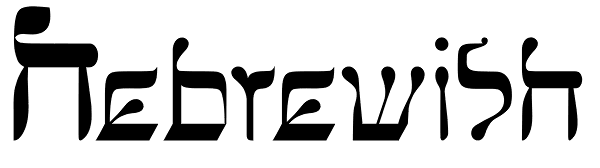
Hebrewish
I decided to create Hebrewish because the only Hebrew Latino font I have ever seen didn't really live-up to my expectations. Each Roman letter and Arabic numeral in this font is based directly on one or more of the Hebrew characters. Originally I...